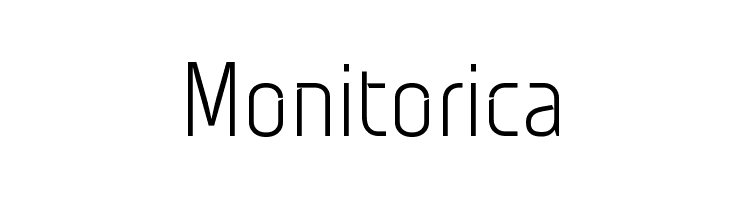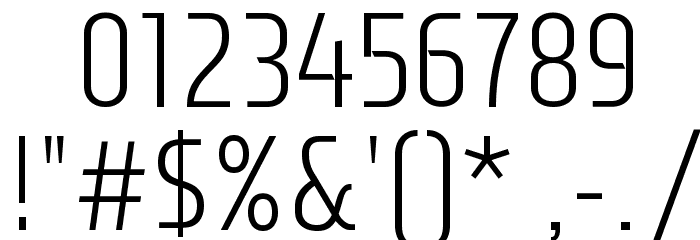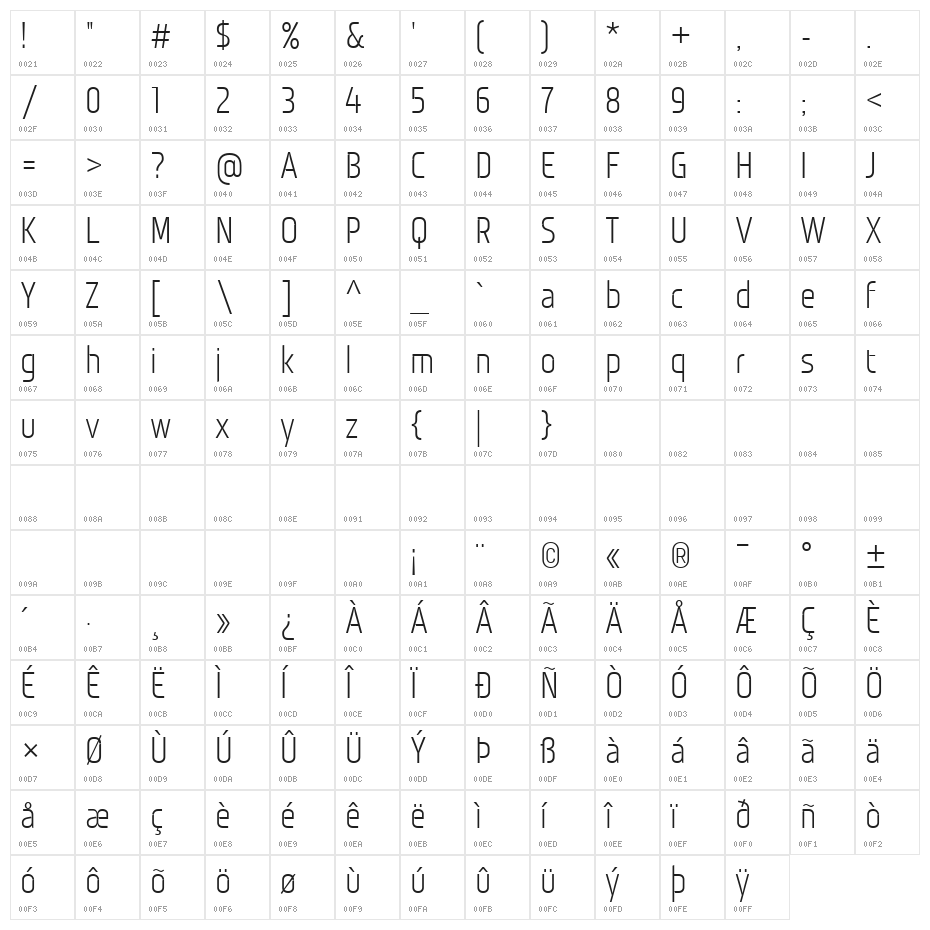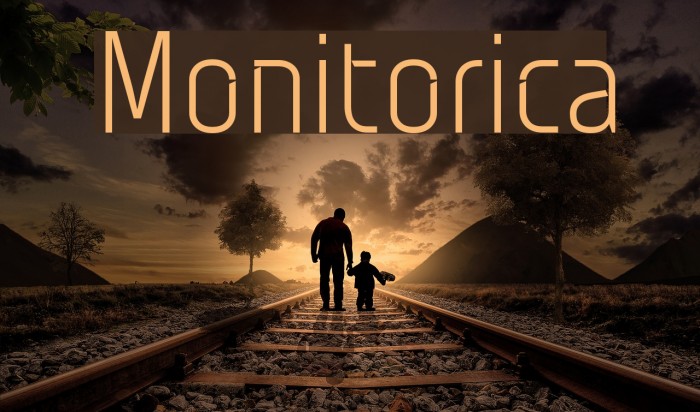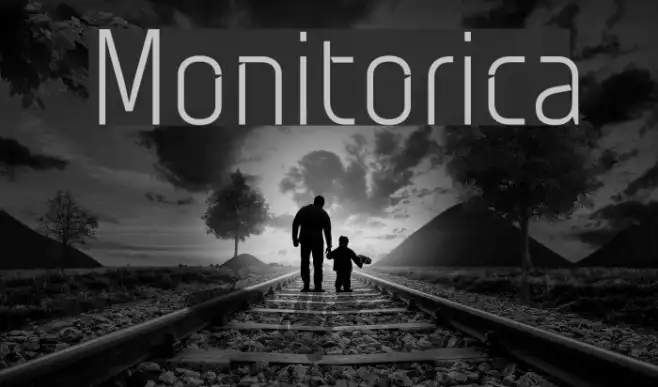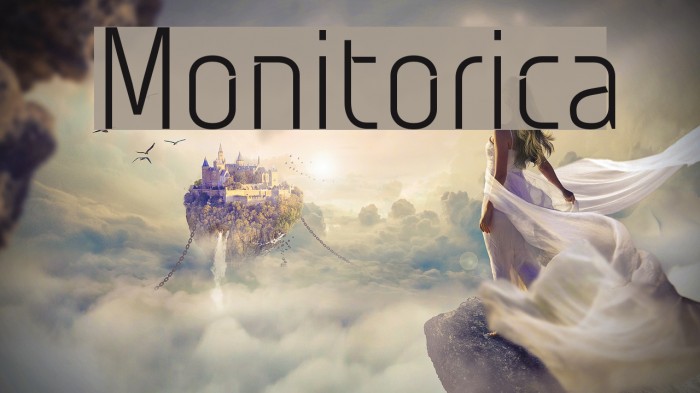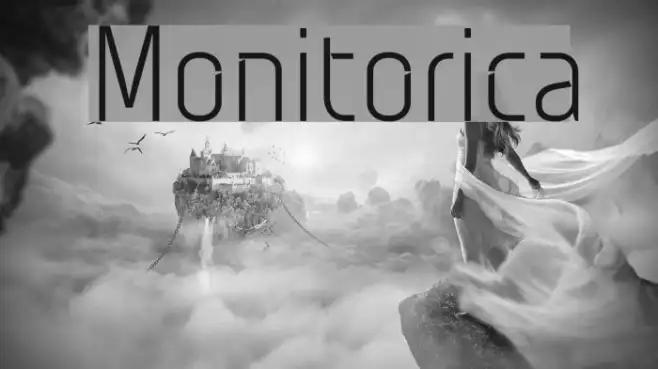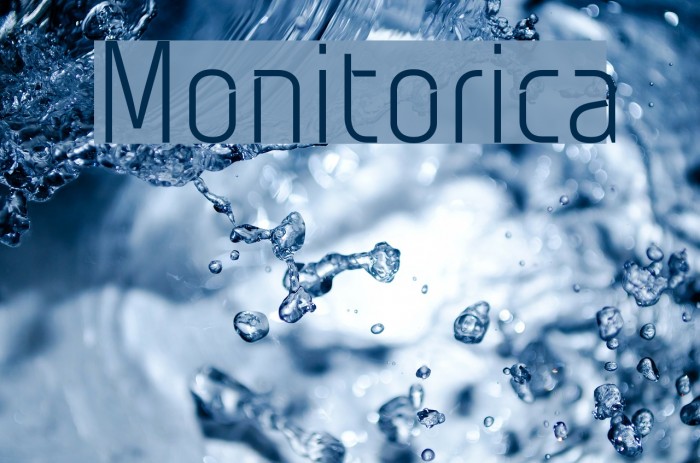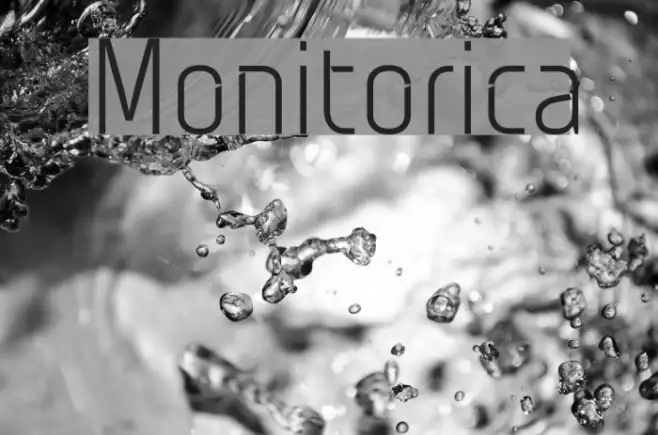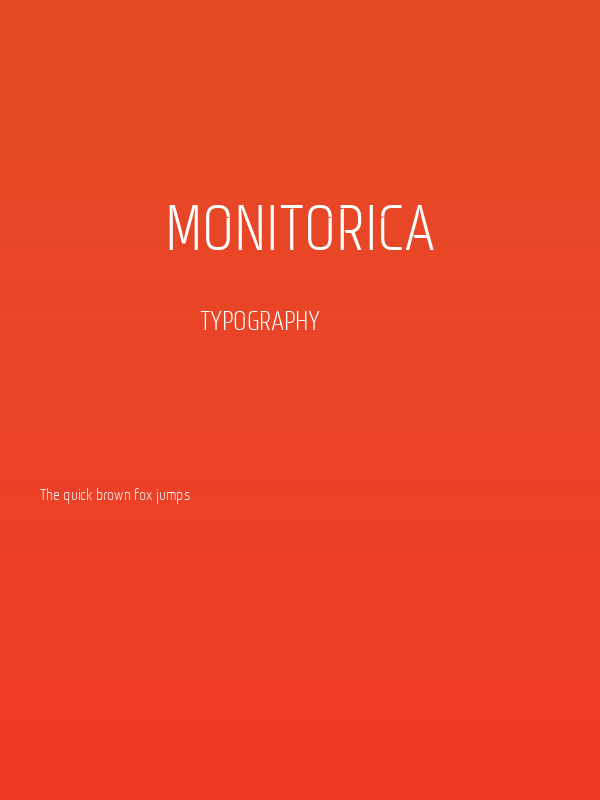
Monitorica Font
Monitorica Description
This font features a modern and sleek design with clean lines and a geometric structure. The characters are uniform in width, giving it a monospaced appearance, although it is not strictly monospaced. The uppercase letters are tall and narrow, while the lowercase letters maintain a consistent height, providing a balanced look. The numerals are clear and easy to read, making them suitable for digital displays. Special characters are designed with the same attention to detail, ensuring they integrate seamlessly with the rest of the typeface. Overall, this font exudes a contemporary and professional vibe, making it ideal for tech-related projects.
| Use Case | Digital displays, Tech branding, User interfaces |
| Proposed Projects | Ideal for tech branding, digital interfaces, coding environments, and modern web design. |